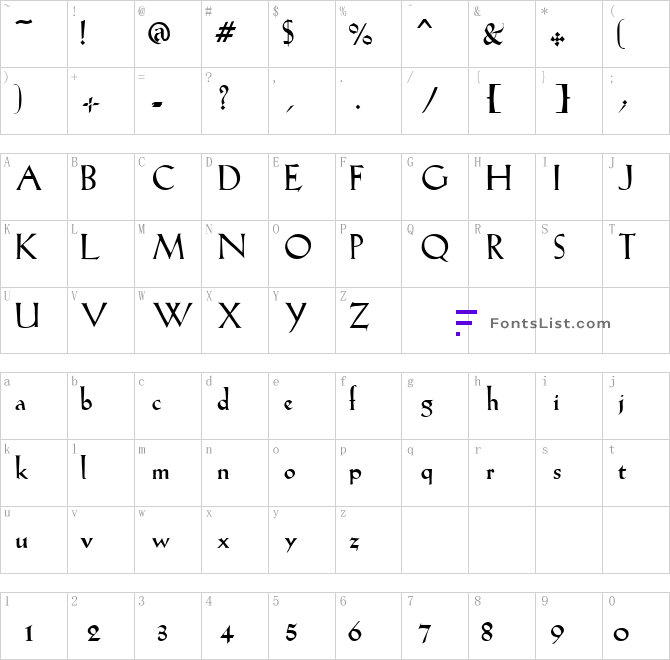
- Font Name:Auvergne
Auvergne.ttf is a very beautiful artistic font, Auvergne.ttf is widely used in the design and printing of various books and pictures,Auvergne.ttf has a strong visual impact,Auvergne.ttf is a commonly used font in newspapers, magazines and books, and is used in posters, e-commerce Poster design, store design, logo design, font design and other fields.Auvergne.